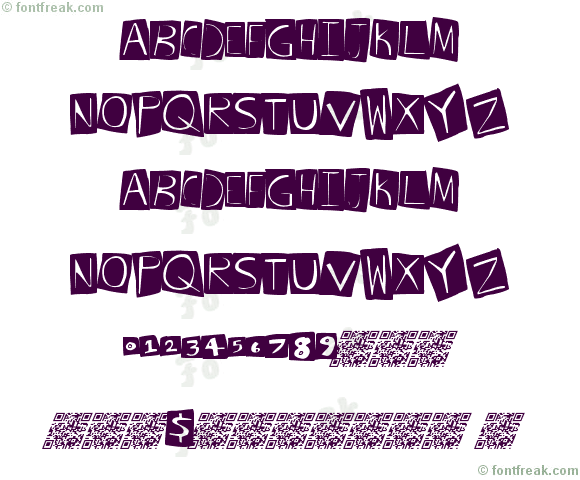
FrenchDance
The FrenchDance font by Xerographer Fonts is a captivating display typeface that exudes a playful and artistic flair, making it a standout choice for various creative projects. Its unique style combines elements of both script and decorative fonts, delivering a lively yet sophisticated appearance. The bold stroke weight gives it a strong presence, while the varying contrast adds an engaging visual rhythm. The spacing is well-balanced, ensuring readability without compromising the font's artistic integrity, making it suitable for eye-catching designs.
This font is particularly effective for a range of specific use cases. It shines in wedding invitations, where its elegant yet whimsical style can evoke a sense of romance and celebration. Movie posters benefit from its dynamic character, drawing attention and creating intrigue. Restaurant menus can utilize FrenchDance to communicate a trendy, upscale vibe, inviting diners to explore their offerings. Additionally, it serves well in branding for creative businesses, as it conveys a modern and artistic identity that resonates with target audiences.
What sets the FrenchDance font apart is its distinctive blend of fun and sophistication, creating a memorable impact. Whether you're designing an invitation, a promotional poster, or any other creative material, the FrenchDance font free download offers a refreshing option that can elevate your work. Its unique style and versatility make it a valuable addition to any designer's toolkit, ready to inspire and engage.